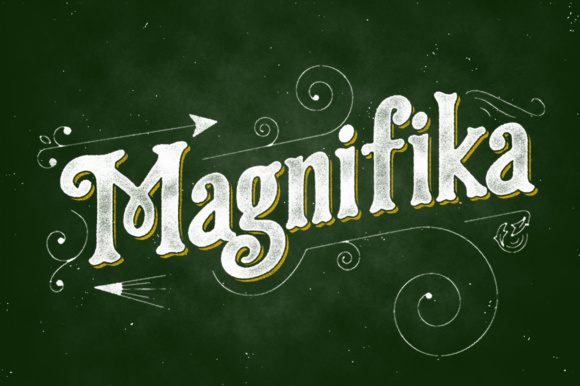
As you embark on a typographic adventure, allow Magnifika Font, a stunning creation by Adam Fathony, to transport you to the grandeur of the Victorian era. This display font, adorned with exquisite vintage letterforms, not only graces your designs with elegance but also weaves a captivating narrative of a bygone era.
With Magnifika Font, transcend the ordinary and embrace a world of beauty, grace, and sophistication. Let your words dance upon the page, imbued with the spirit of a time when art and aesthetics reigned supreme. Experience the allure of intricately crafted characters, each stroke a testament to the artistry of the past.
Magnifika Font is not merely a collection of letters; it is a portal to a world of limitless creativity. Its meticulously designed ornaments, like scattered jewels, add a touch of grandeur to your projects, elevating them from ordinary to extraordinary. Create breathtaking logos that evoke a sense of nostalgia, design invitations that exude timeless charm, or craft social media posts that capture the attention of your audience.
Whether you're a seasoned designer or just starting your typographic journey, Magnifika Font is your perfect companion. Its versatility knows no bounds, adapting seamlessly to a myriad of projects, from elegant branding to eye-catching advertisements. Let your imagination soar as you explore the endless possibilities that await you.
With Magnifika Font, you're not just downloading a font; you're acquiring a piece of history, a tribute to the enduring power of beauty. Its vintage charm will add a touch of magic to your creations, leaving an indelible mark on the hearts of your audience.